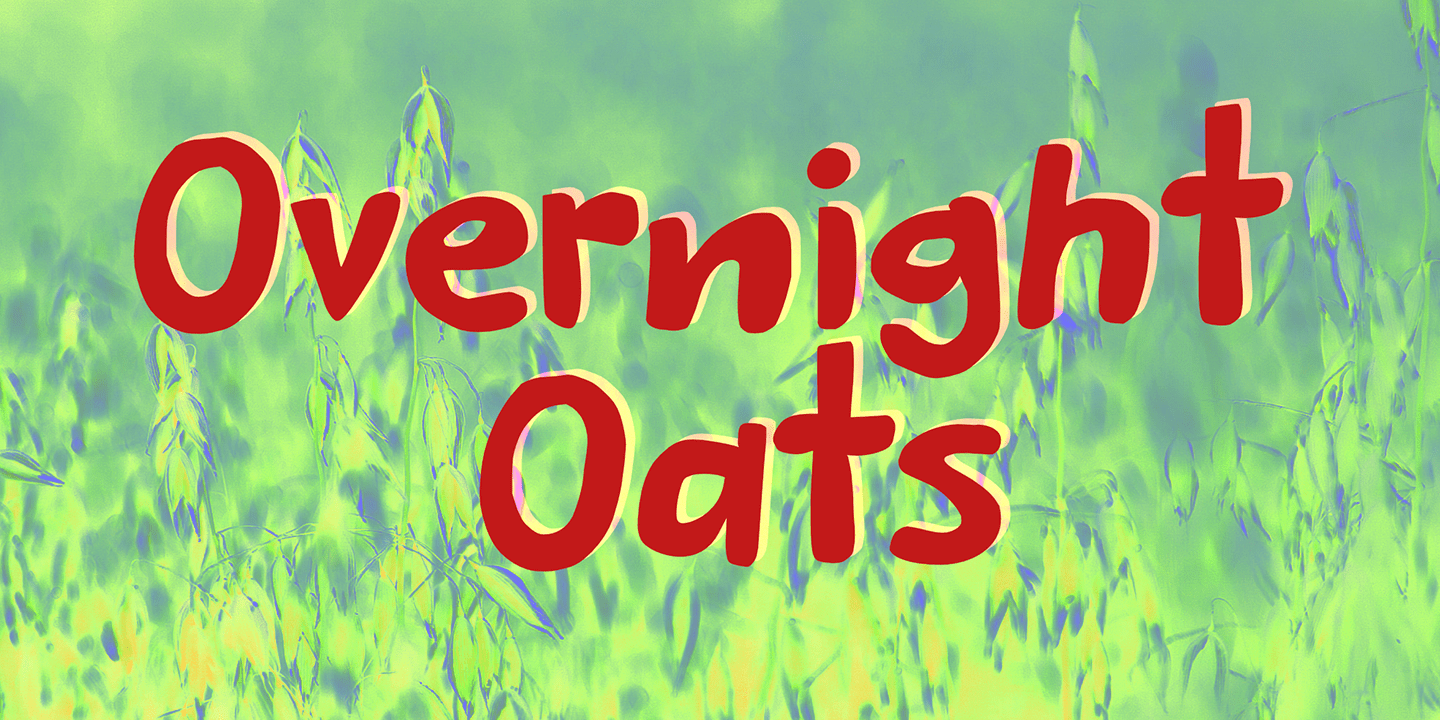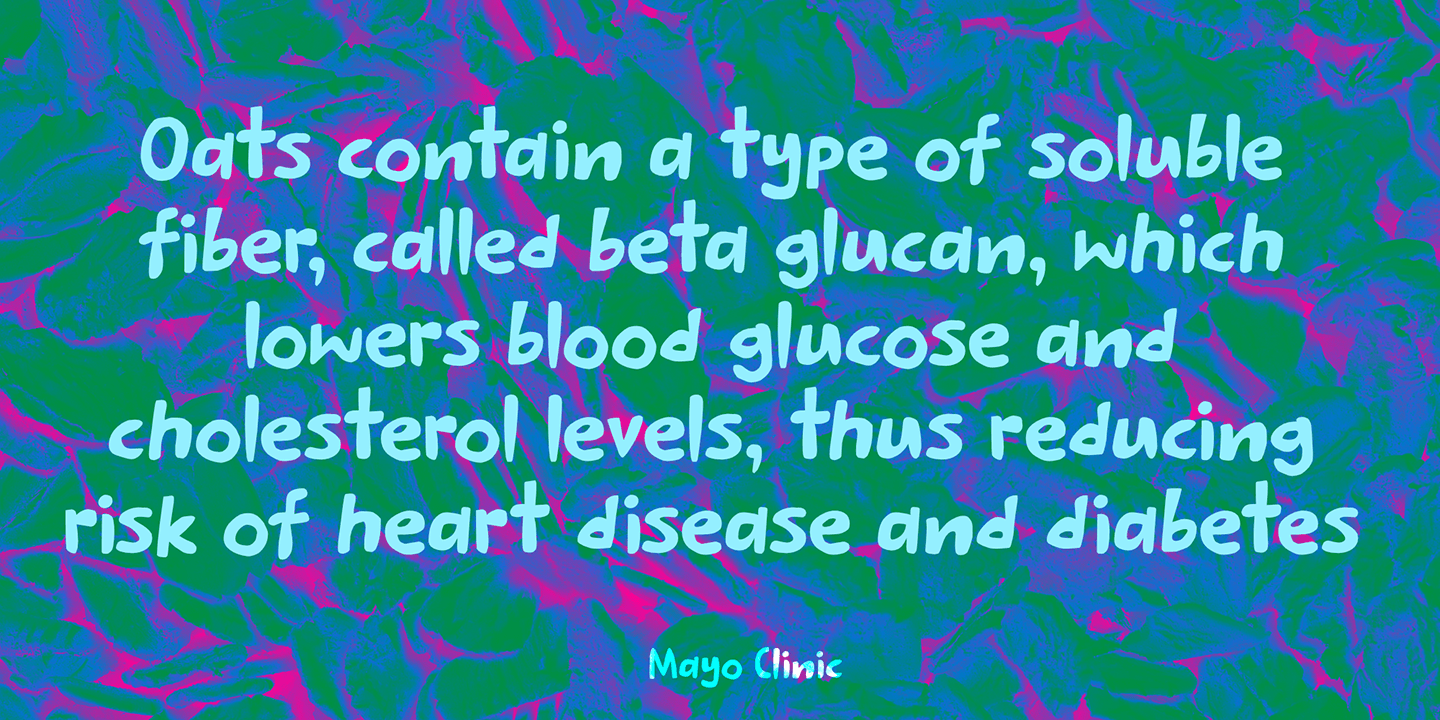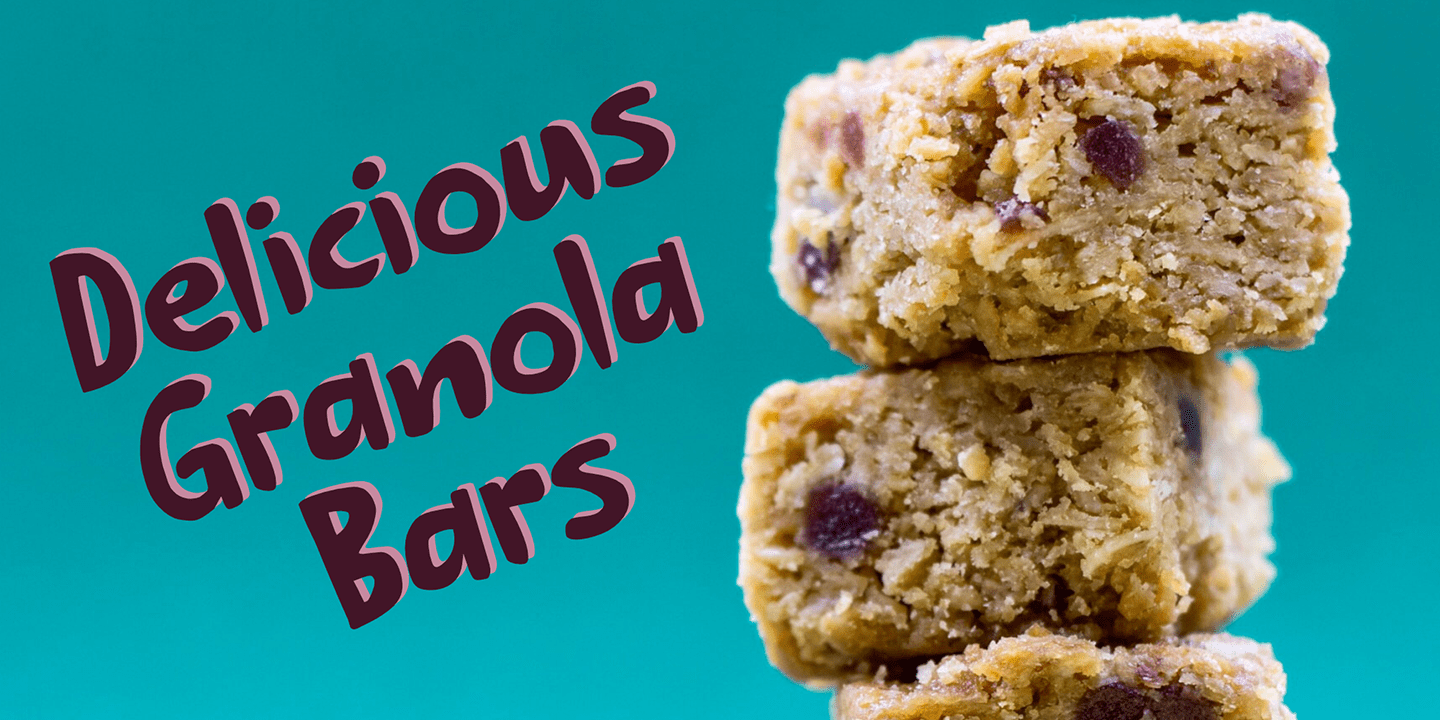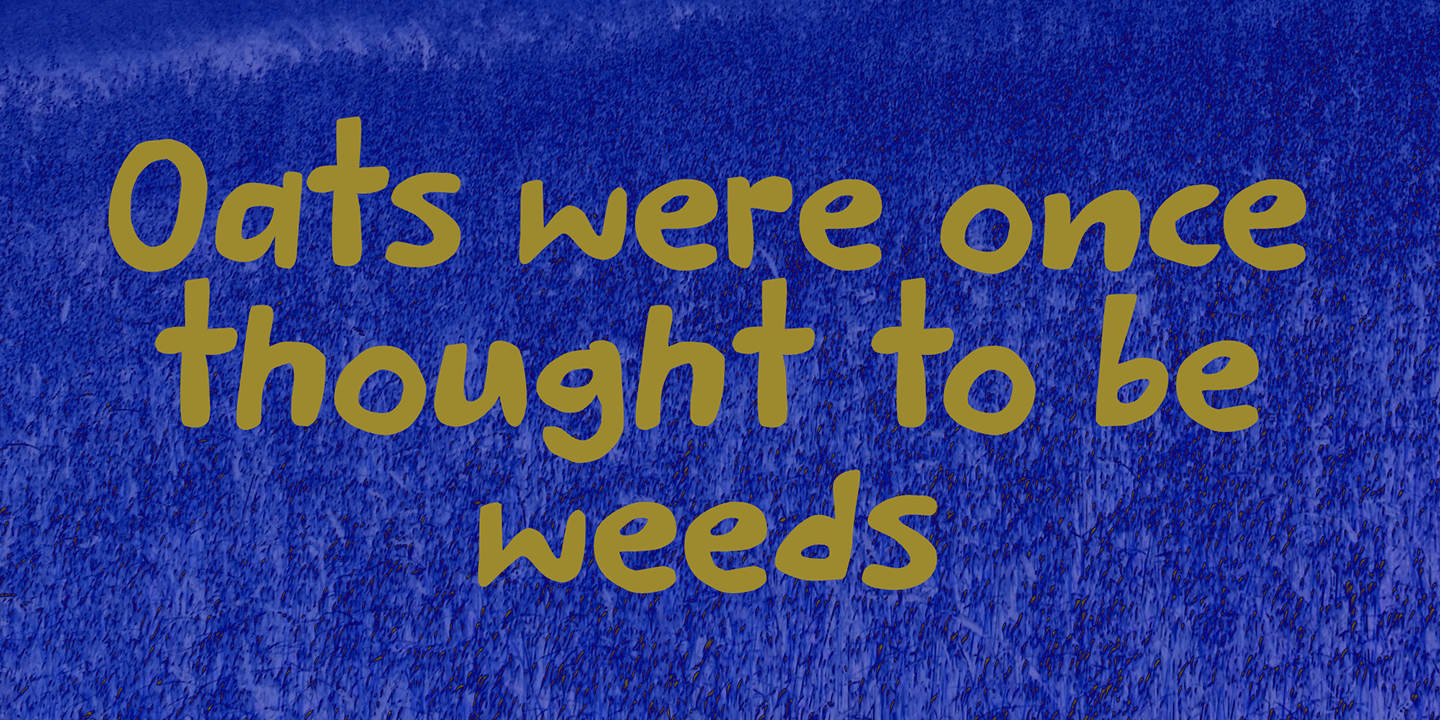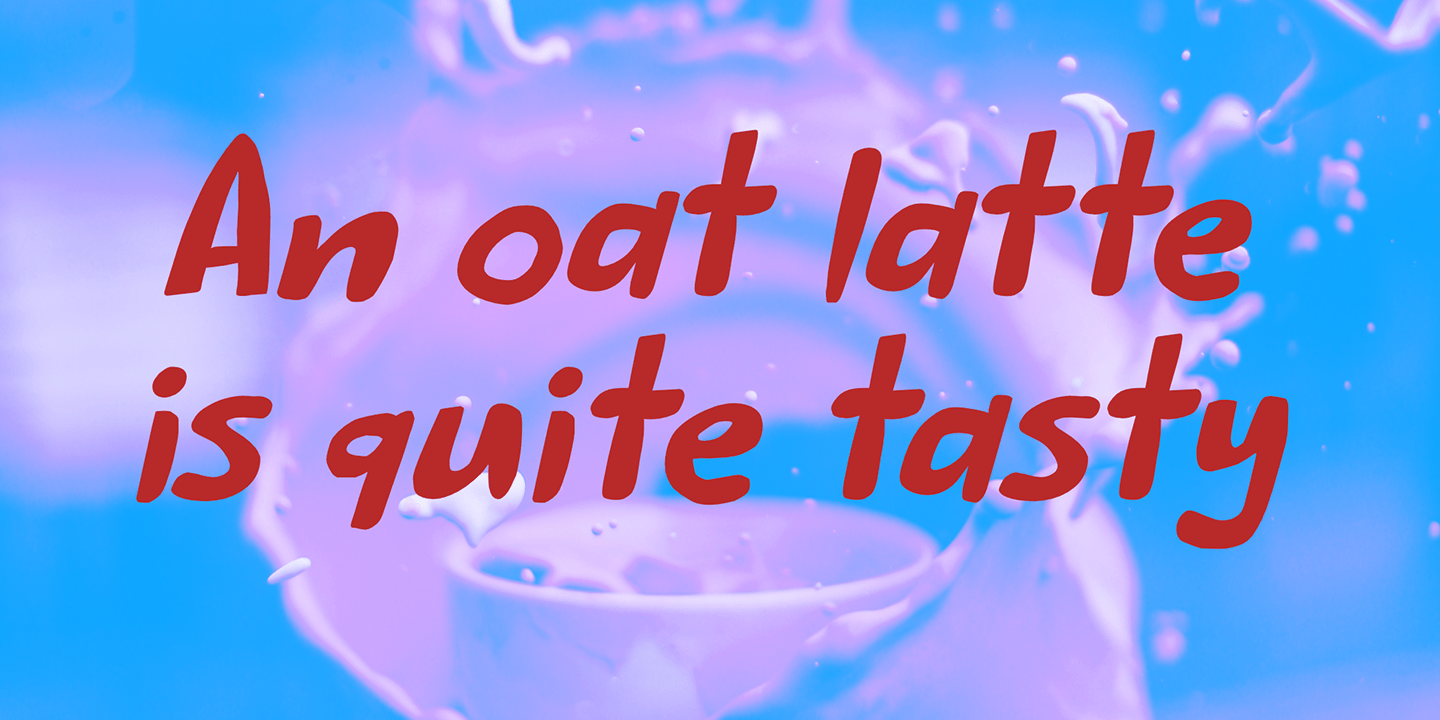
Overnight Oats
I recently walked part of the South West Coast Path in the UK. A couple of days in the hike, I came across a small cafe and I decided to have an oat latte (I am lactose intolerant). Since it was early in the morning, the breakfast menu was out and one of the items I noticed was ?Overnight Oats?. I normally cook my oats with some lactose free milk and water, but apparently you can soak them overnight, add fruit and nuts and eat it like that. I tried it, it's ok, but I think I prefer the cooked version.
Overnight Oats is a bit of an odd font: it is very higgledy piggledy, yet legible and unique. If you want something out of the ordinary, then this may be your font!
Overnight Oats by Hanoded